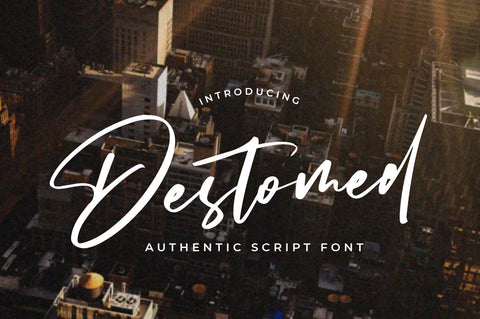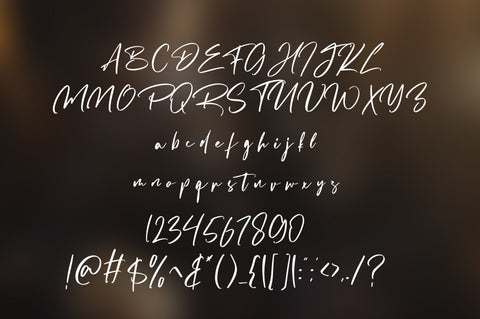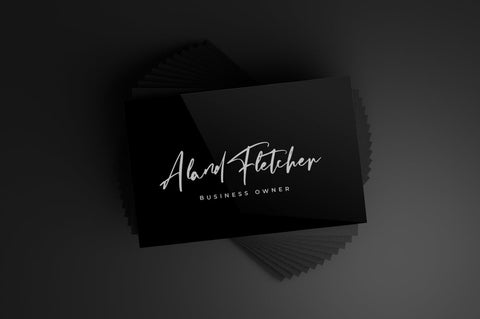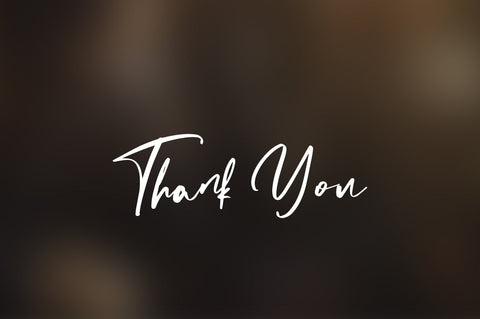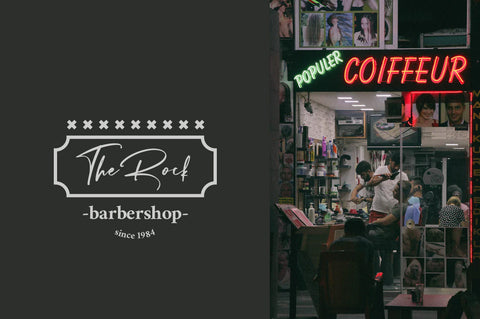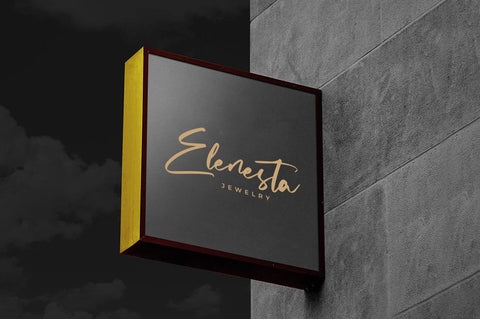
Destomed - Brush Font
Destomed is an elegant and delicate handwritten font. It looks stunning on wedding invitations, thank you cards, quotes, greeting cards, logos, business cards and every other design which needs a handwritten touch.
- Uppercase + Lowercase Letters
- Numbers + Punctuation
- Ligature Feature
- OpenType features
- Multilingual support